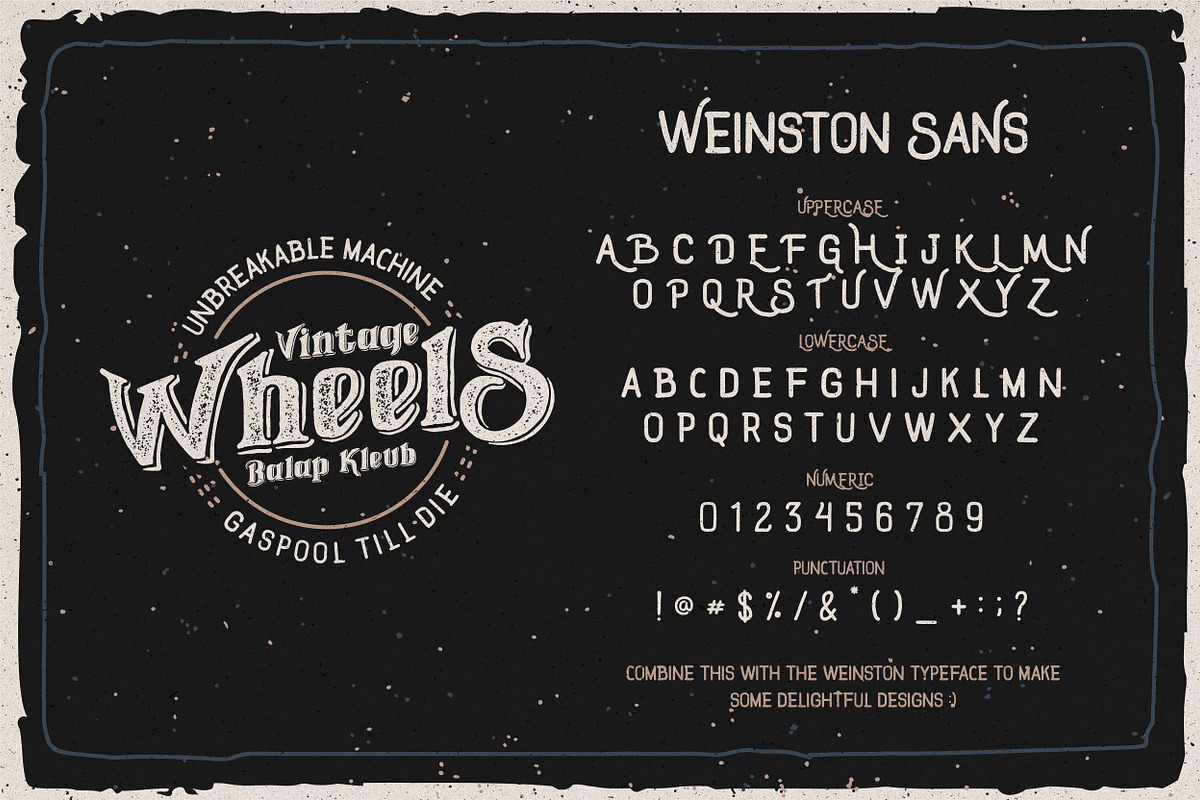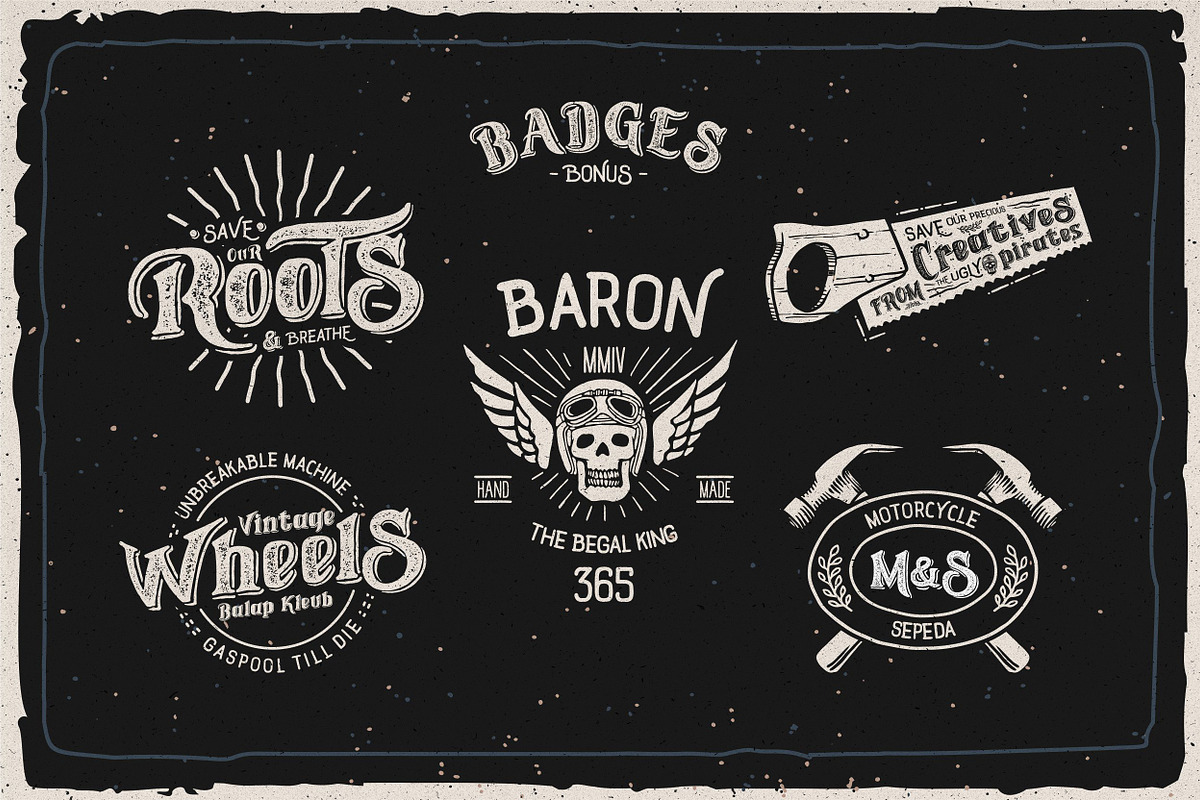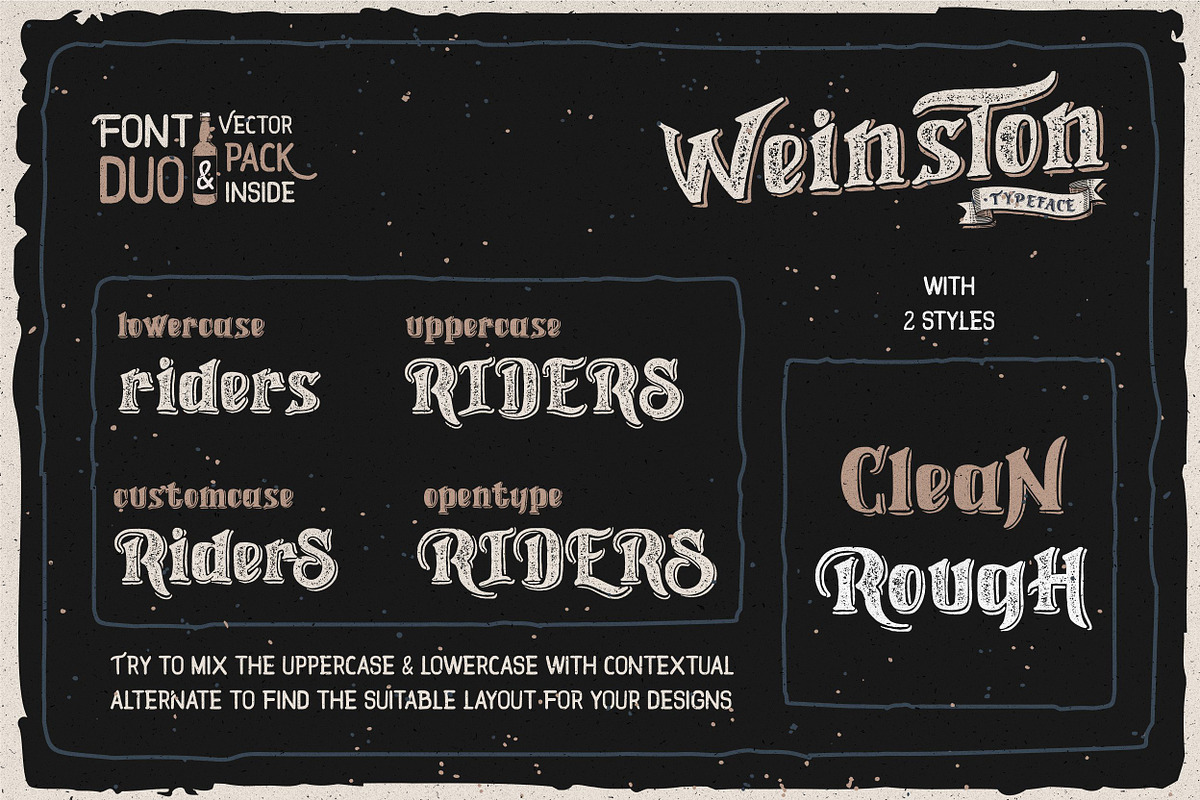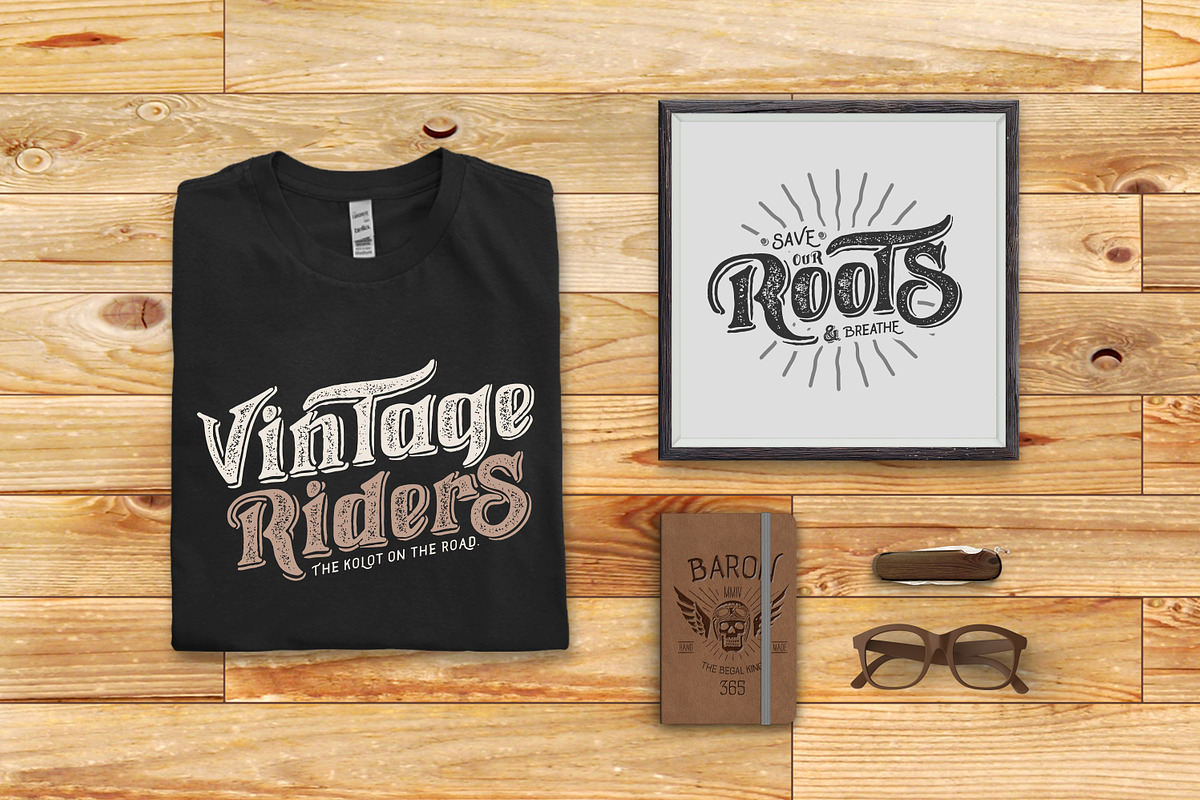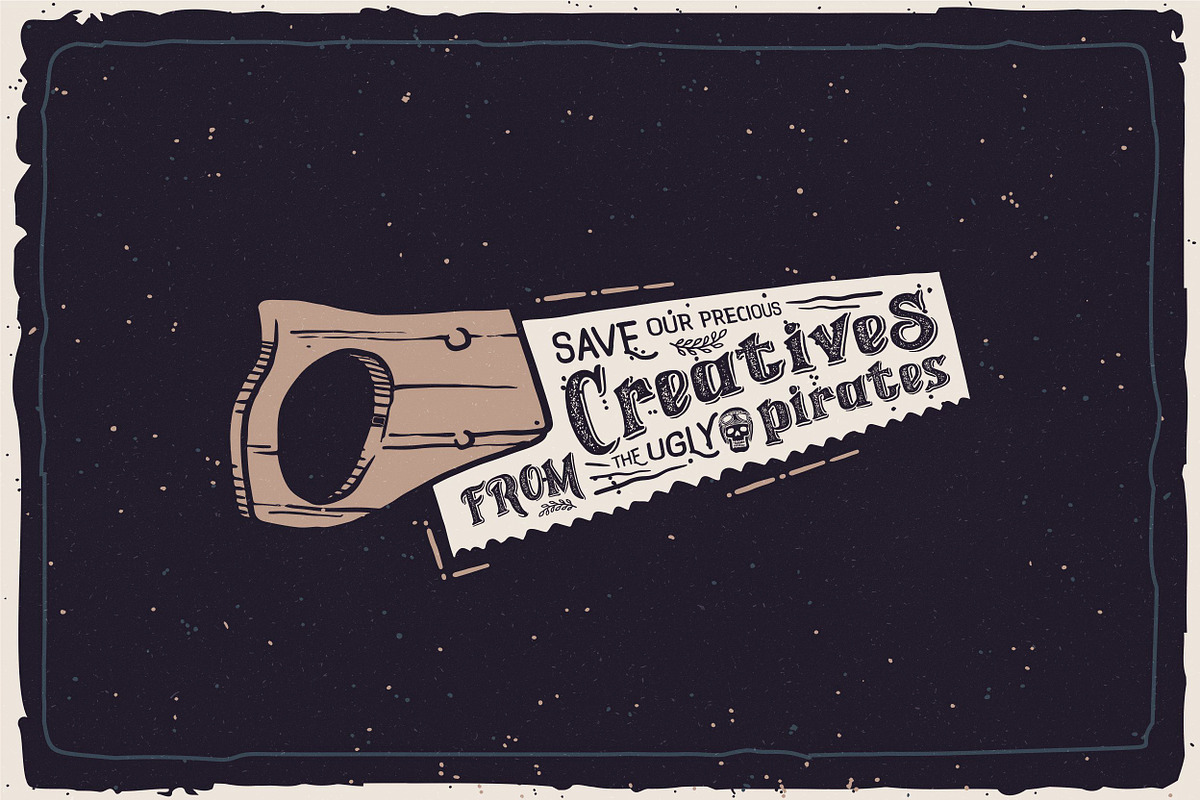
Weinston Typeface + Extras
Weinston Typeface + Extras by Heybing Supply Co. is a font selected for branding, posters, packaging, typography.
- The Weinston typeface includes a full set of capital and lowercase letters, as well as multi-lingual support, currency figures, numerals, pu
- Weinston Typeface Regular
- Weinston Rough Typeface Regular
- Weinston Sans Typeface Regular
Why Weinston Typeface + Extras is worth a look
Weinston Typeface + Extras by Heybing Supply Co. fits naturally into Branding, posters, packaging, typography.